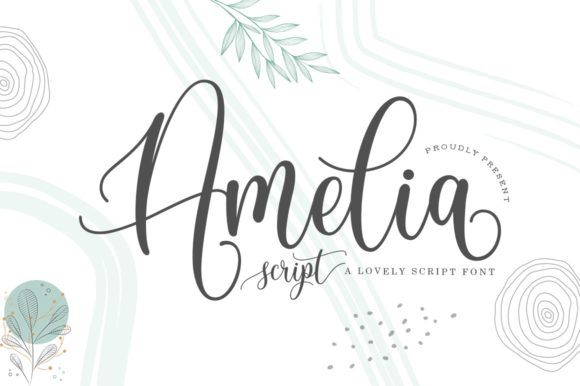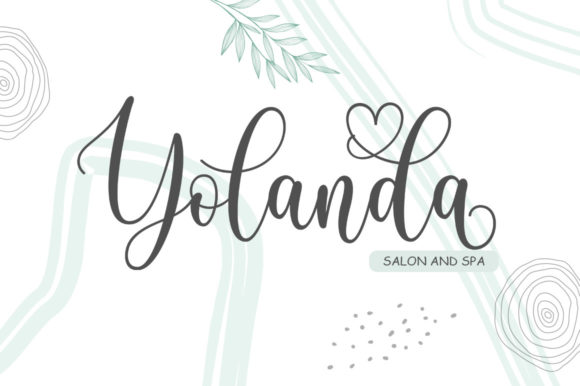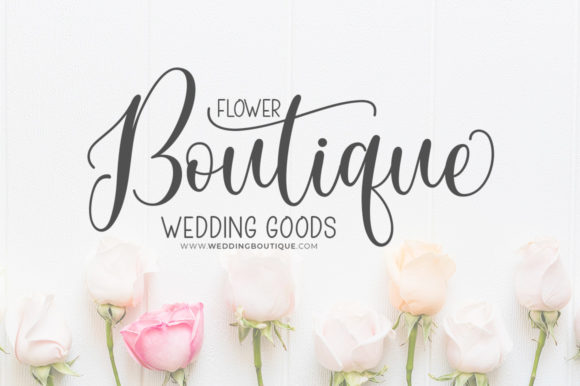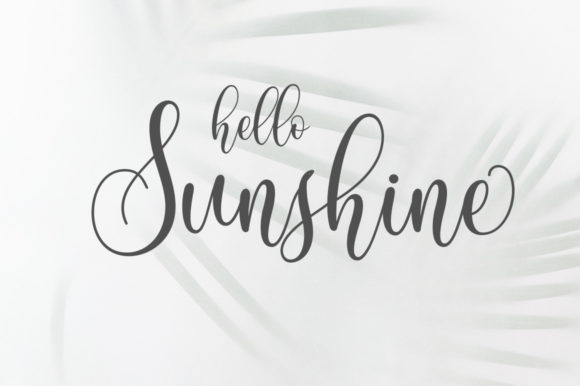
Amelia Script Font
About the Amelia Script Font
The Amelia Script Font offers a perfect balance of form and function for your design needs. Amelia is a new modern script font with an irregular baseline. Trendy and feminine, Amelia Script looks lovely on wedding invitations, thank you cards, quotes, greeting cards, logos, business cards, and more. Perfect for using in ink or watercolor.
Amelia’s irregular baseline and flowing forms make it ideal for short, impactful text such as headlines, logos, and short-form social media content. It works exceptionally well in branding for businesses targeting a female demographic, particularly those in fashion, beauty, or wedding-related industries. Avoid using Amelia for large blocks of text or body copy; its decorative nature reduces readability in extended passages.
For a balanced design, pair Amelia with a clean sans-serif like Montserrat or Lato for body text to maintain readability. Alternatively, a classic serif like Playfair Display can provide a sophisticated contrast, while a geometric sans-serif like Futura offers a modern juxtaposition.
Amelia projects a sophisticated yet friendly personality, best suited for brands aiming for a feminine and approachable aesthetic. Its modern feel prevents it from appearing overly fussy or dated.
Amelia Script Font Usage Examples
Amelia Script Font Example